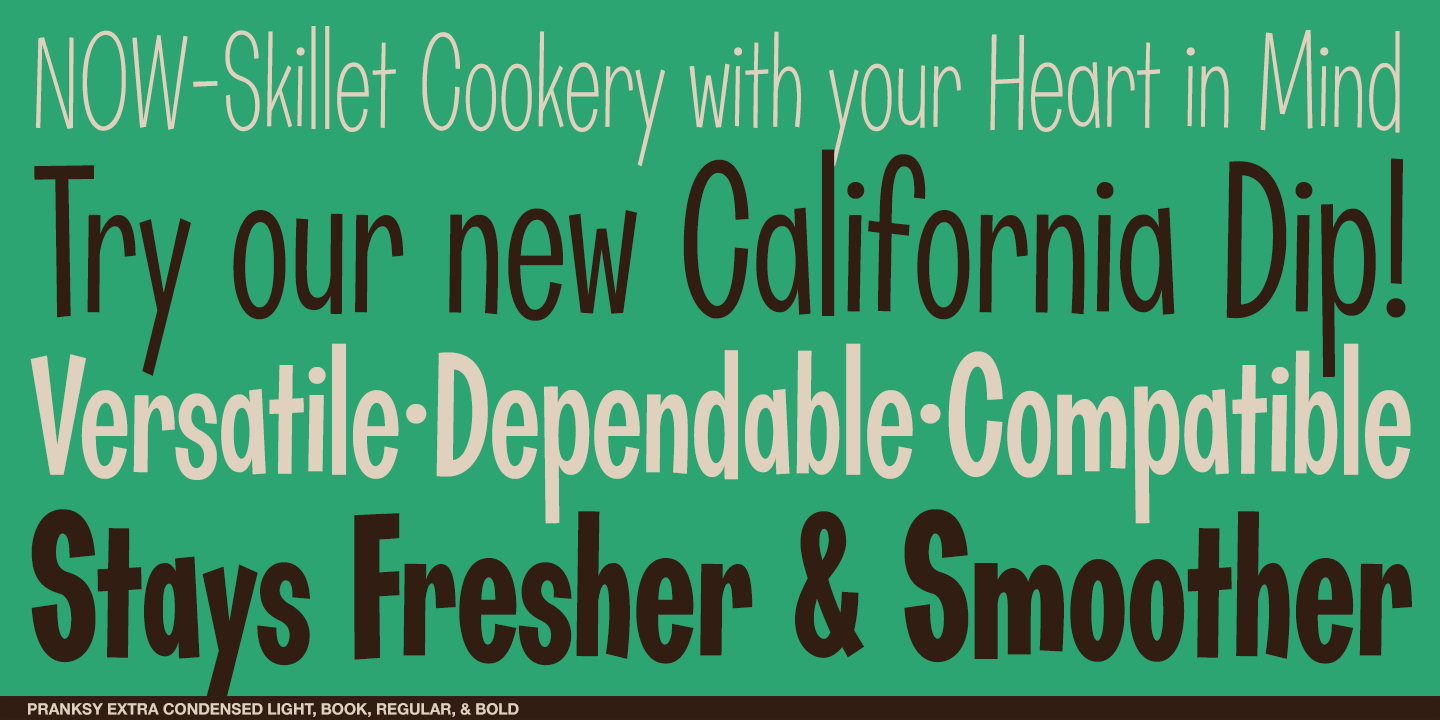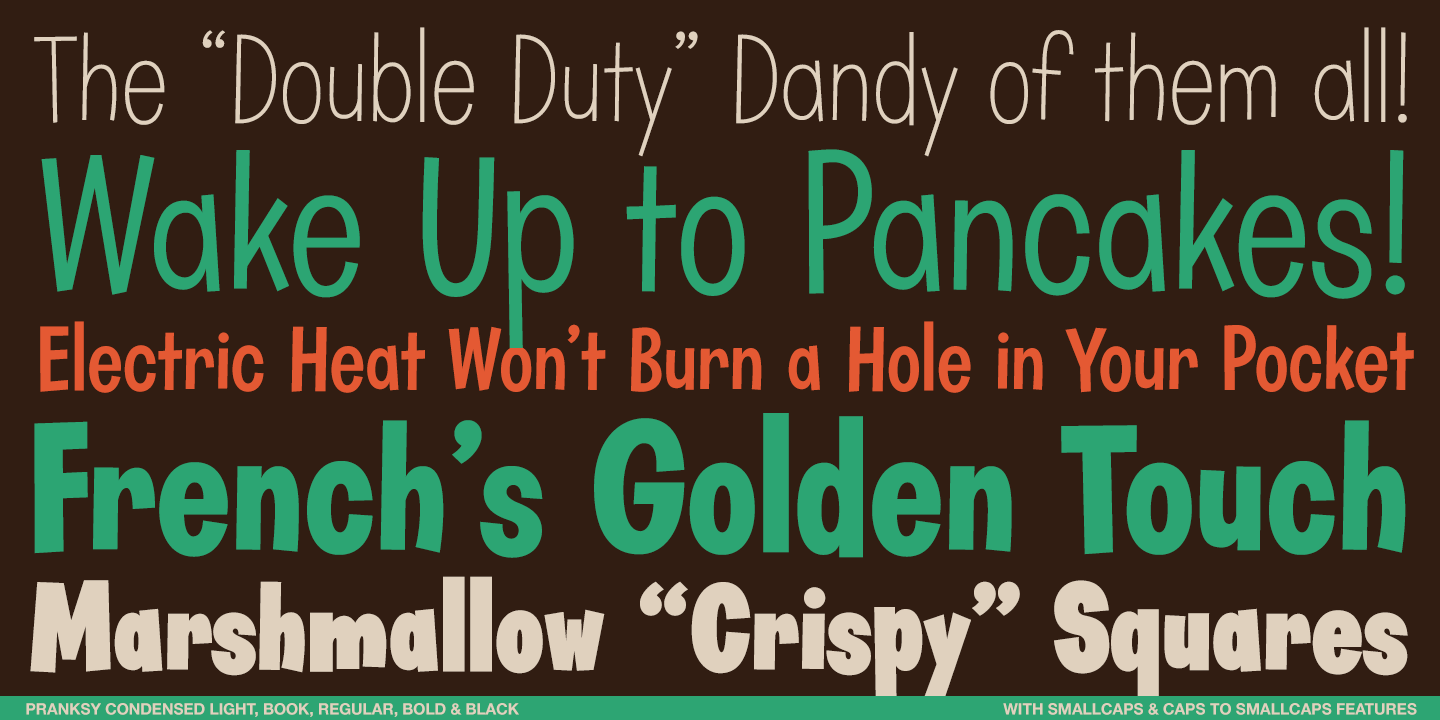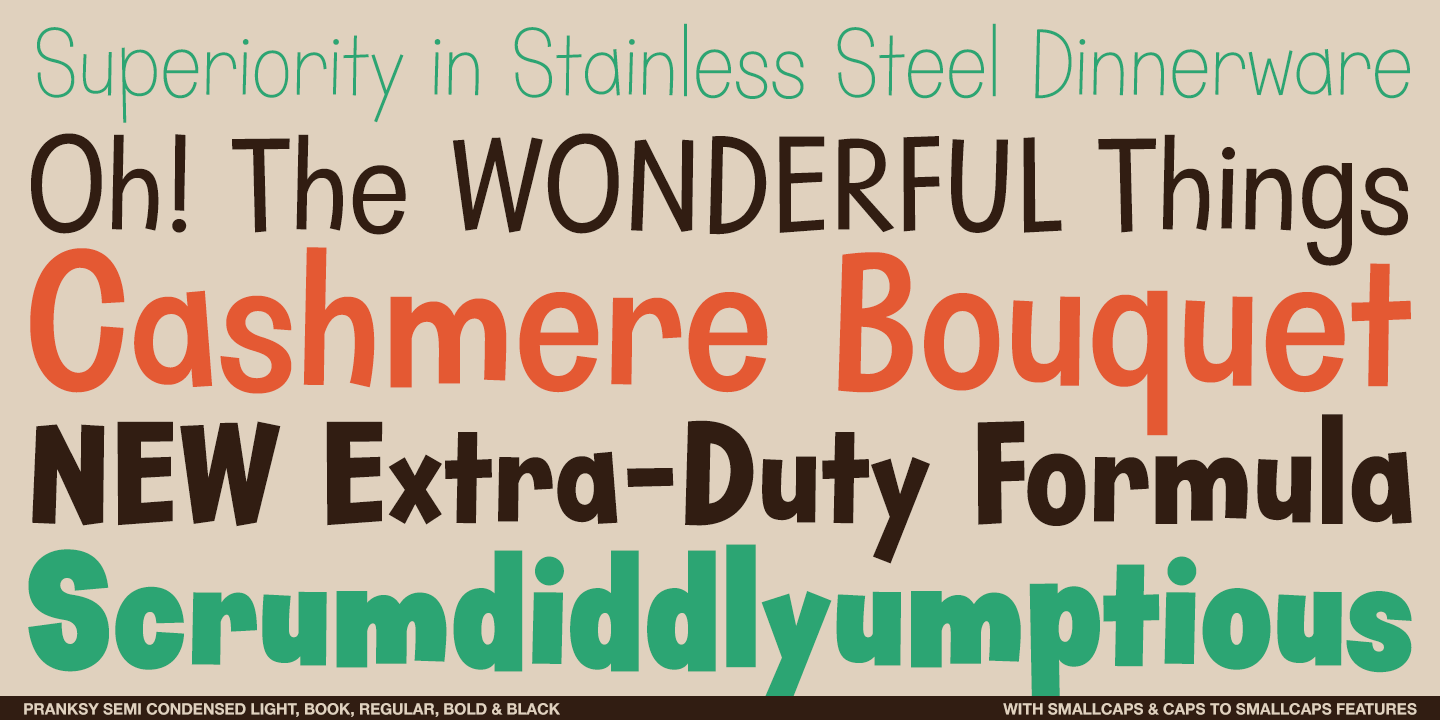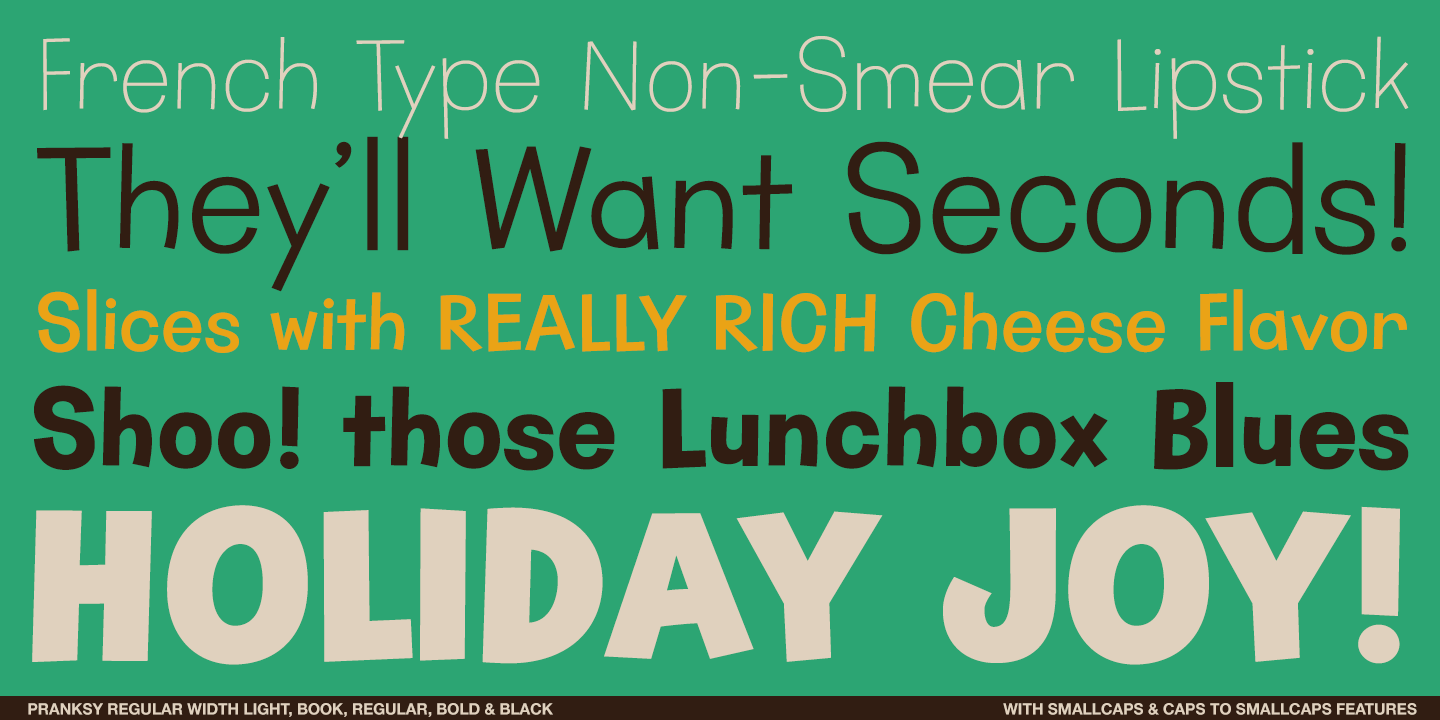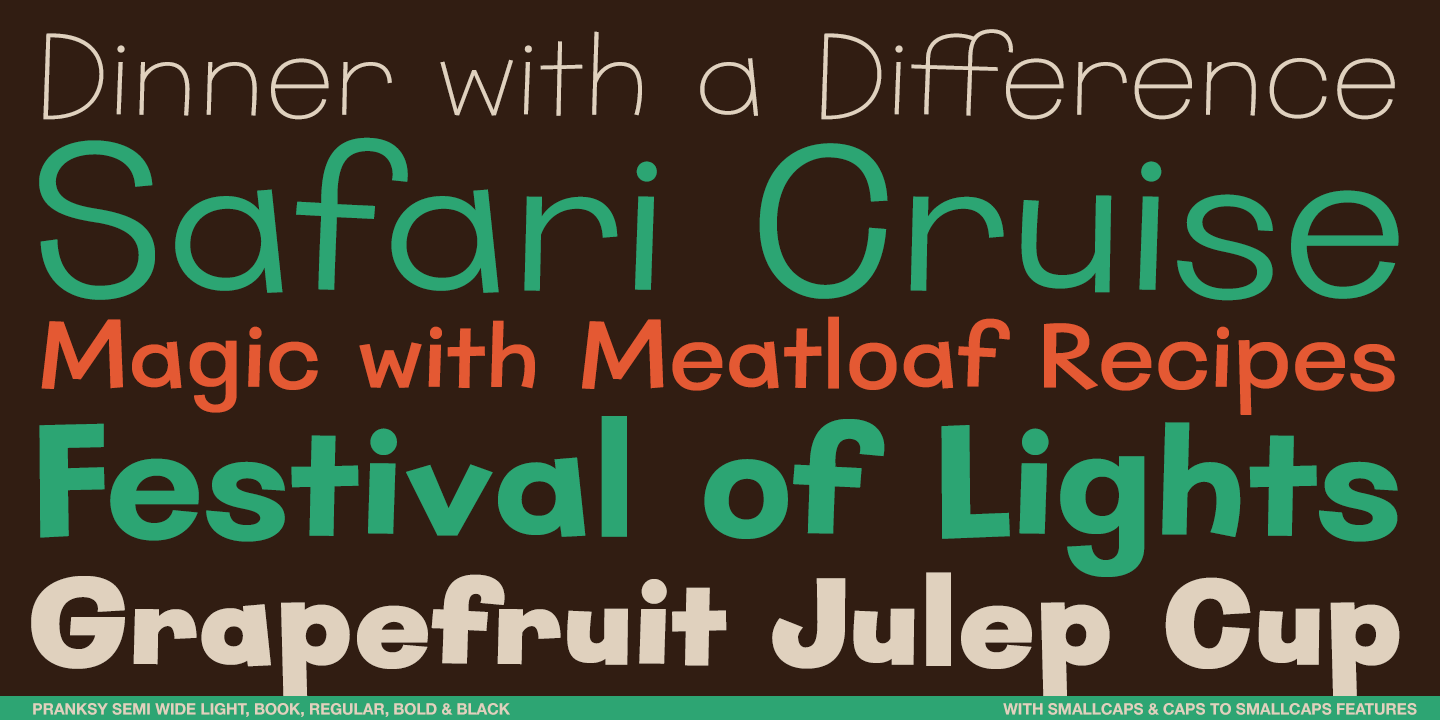
About Pranksy AOE
The Pranksy AOE Family has been something I've been tinkering with for quite awhile…a mega-family full of playfulness and fun and frolic. Animated lettering styles speak to me, especially highly condensed ones, but I also love the idea of a wide…